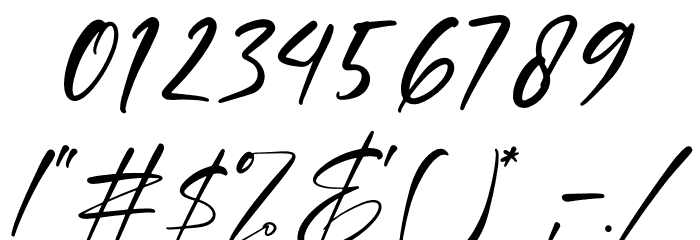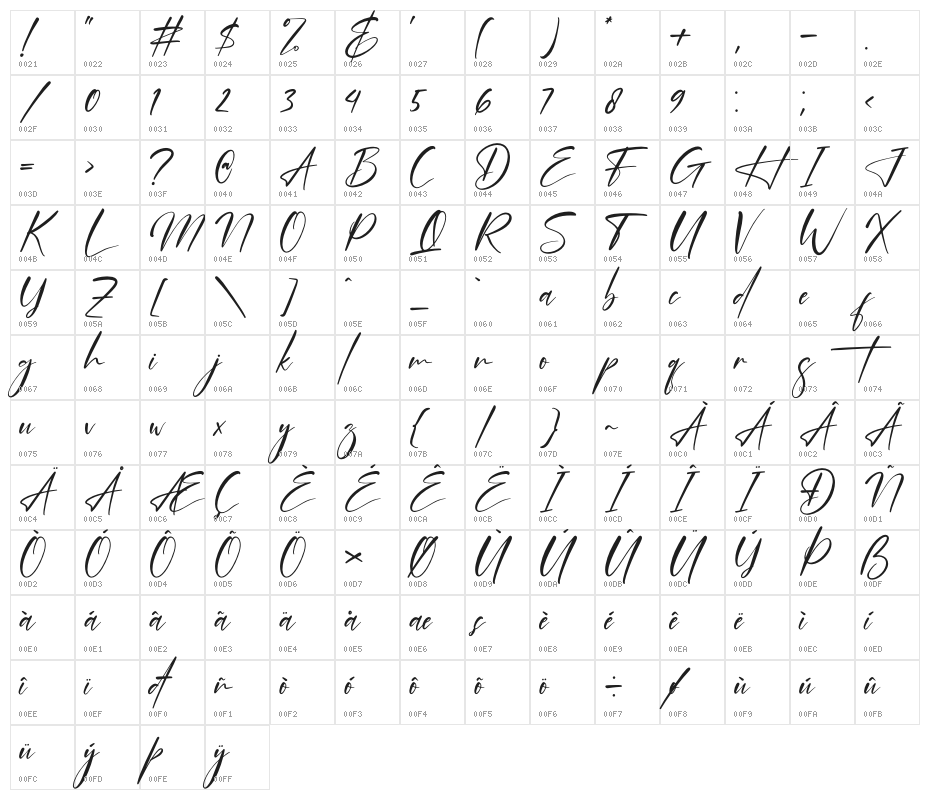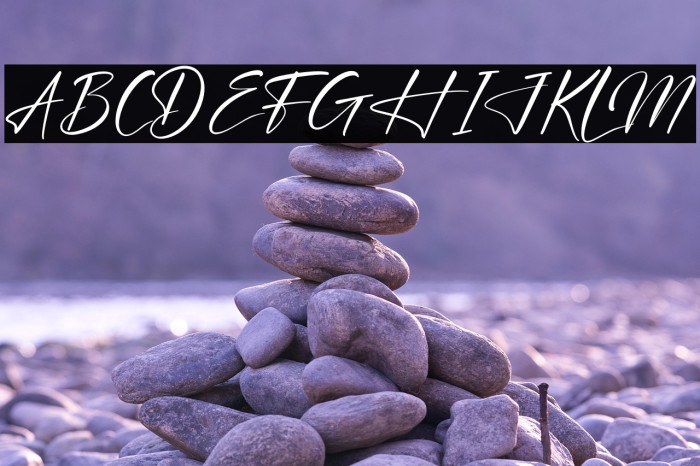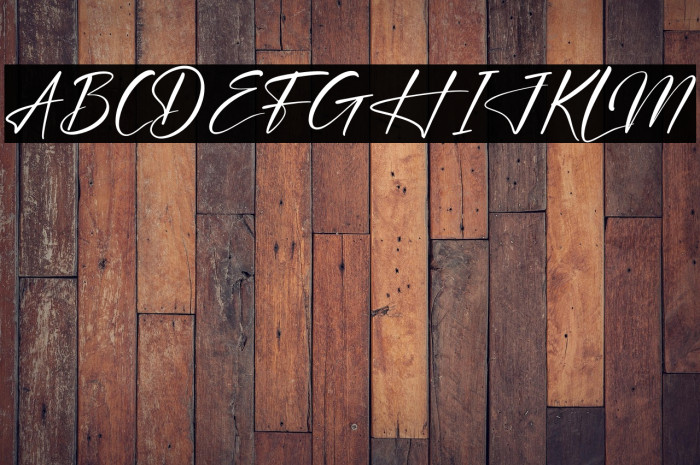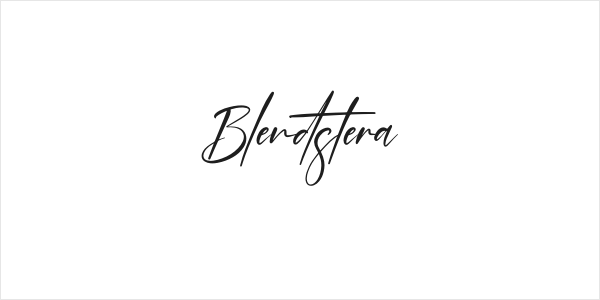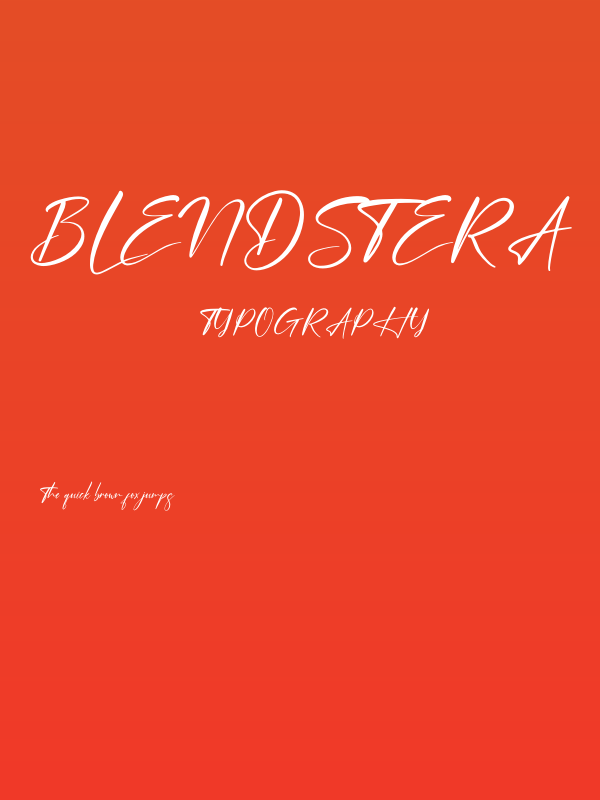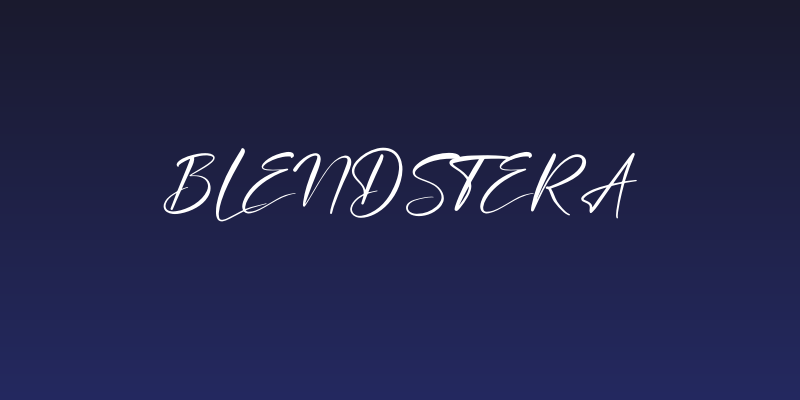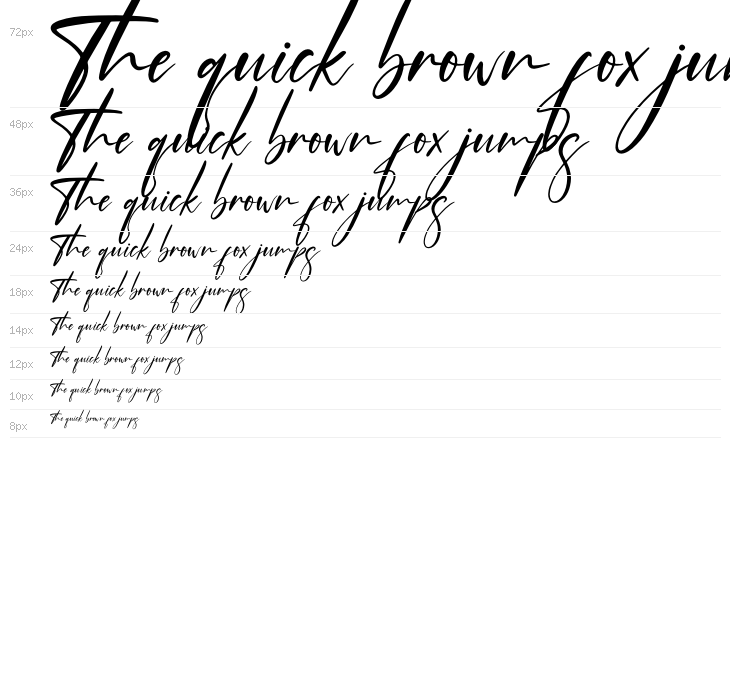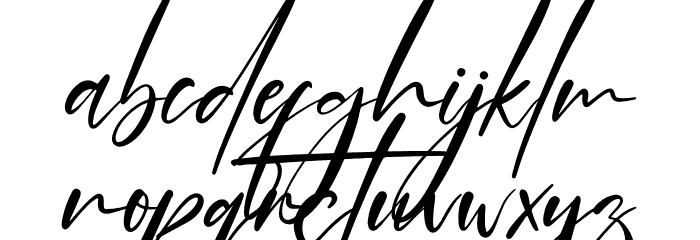
Blendstera Font
Blendstera Description
This font features a dynamic and fluid script style, characterized by its elegant and flowing letterforms. The uppercase letters are bold and slightly slanted, giving a sense of movement and energy. The lowercase letters maintain a consistent rhythm, with smooth curves and a handwritten appearance. The numerals are distinct and easy to read, complementing the overall aesthetic. Special characters are creatively designed, adding to the font's versatility. This font exudes a modern and stylish vibe, making it suitable for a variety of creative projects.